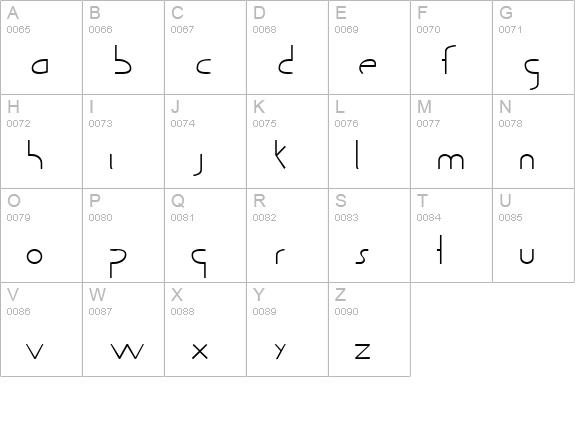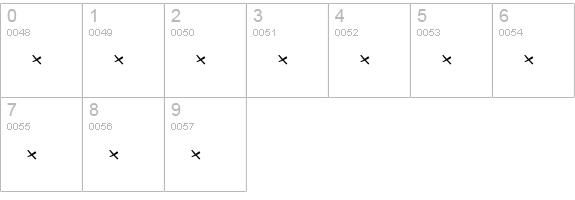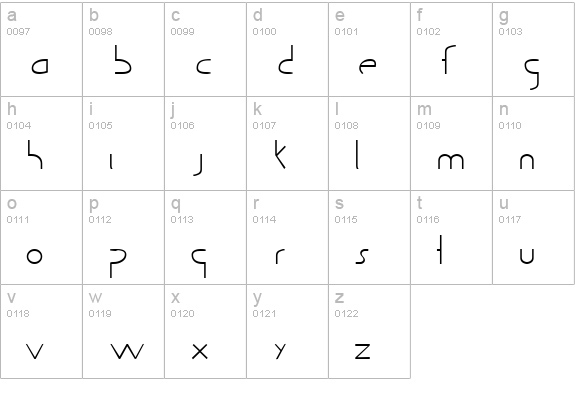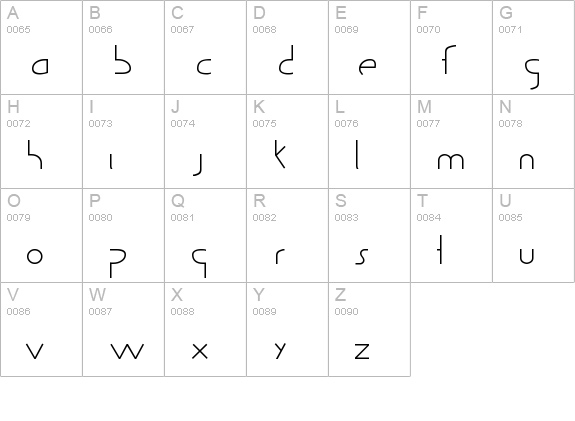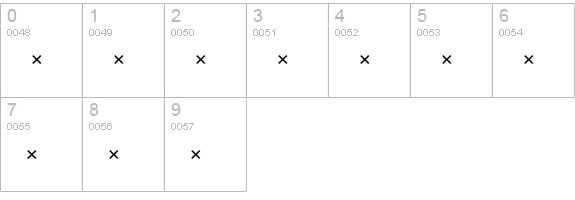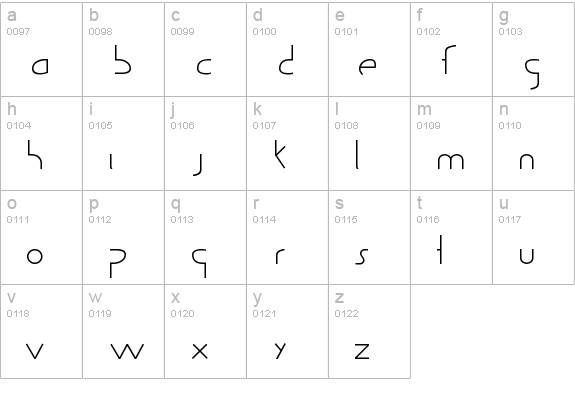
Guild of Professional Actors Font Details
The Guild of Professional Actors font is a sleek and elegant typeface designed especially for those in the performing arts industry. With its clean lines and sophisticated aesthetic, this font exudes professionalism and creativity. Whether you're creating promotional materials for a theater production or designing a resume for an audition, the Guild of Professional Actors font is sure to make a lasting impression. Best of all, this font is completely free to download at FontsMarket.com. So, whether you're a seasoned actor or just starting out in the industry, you can easily access this stylish font to elevate your projects and stand out from the crowd. Embrace the art of typography with the Guild of Professional Actors font and let your creativity shine.